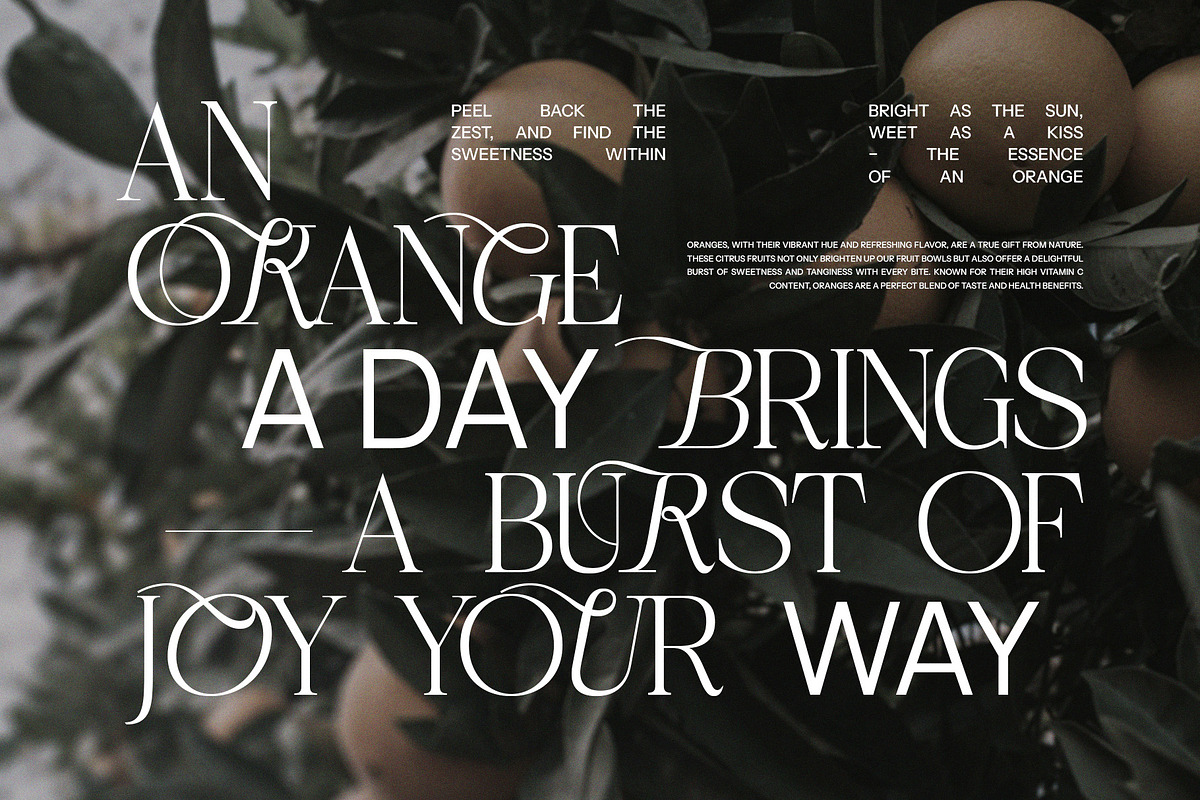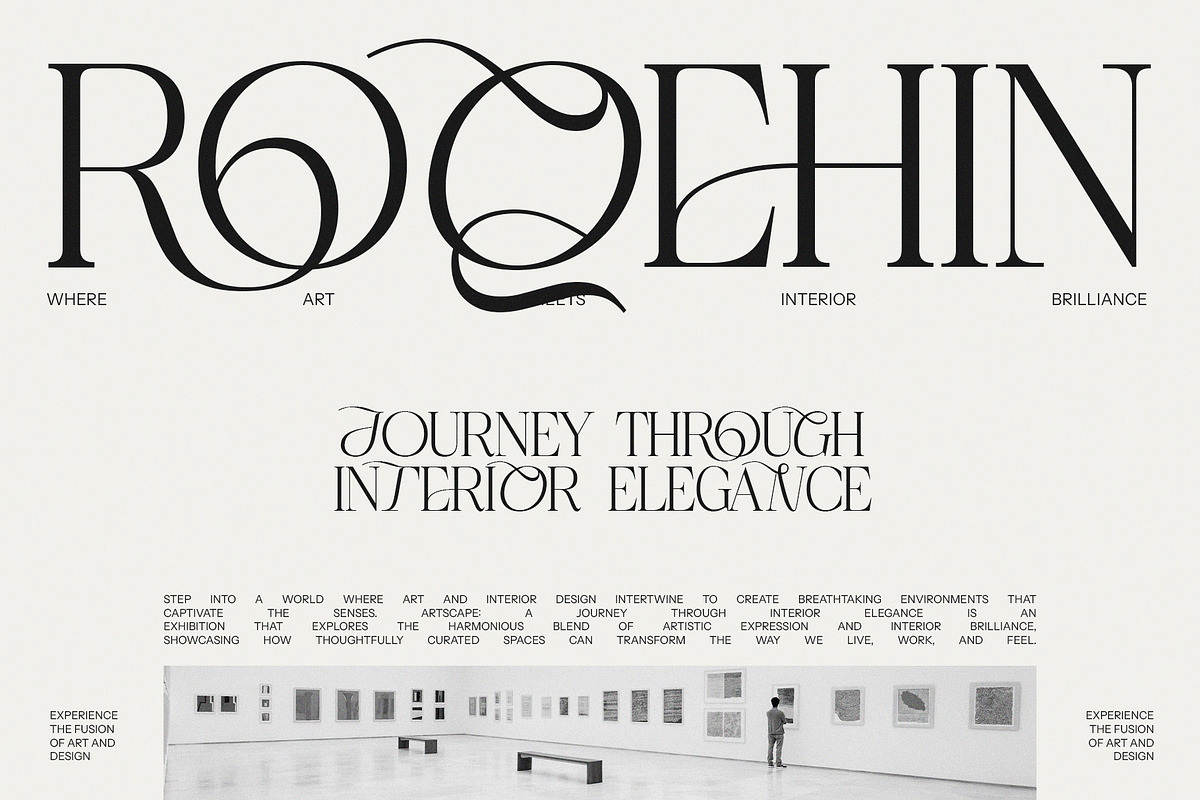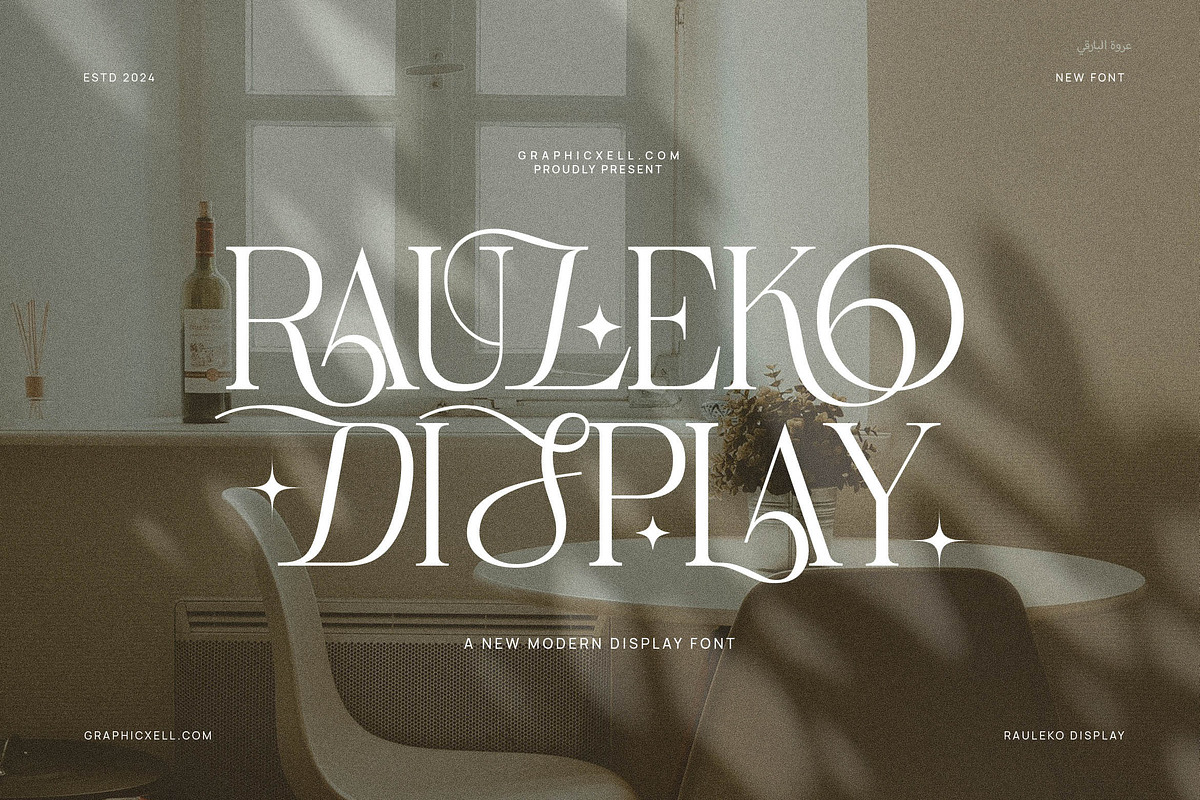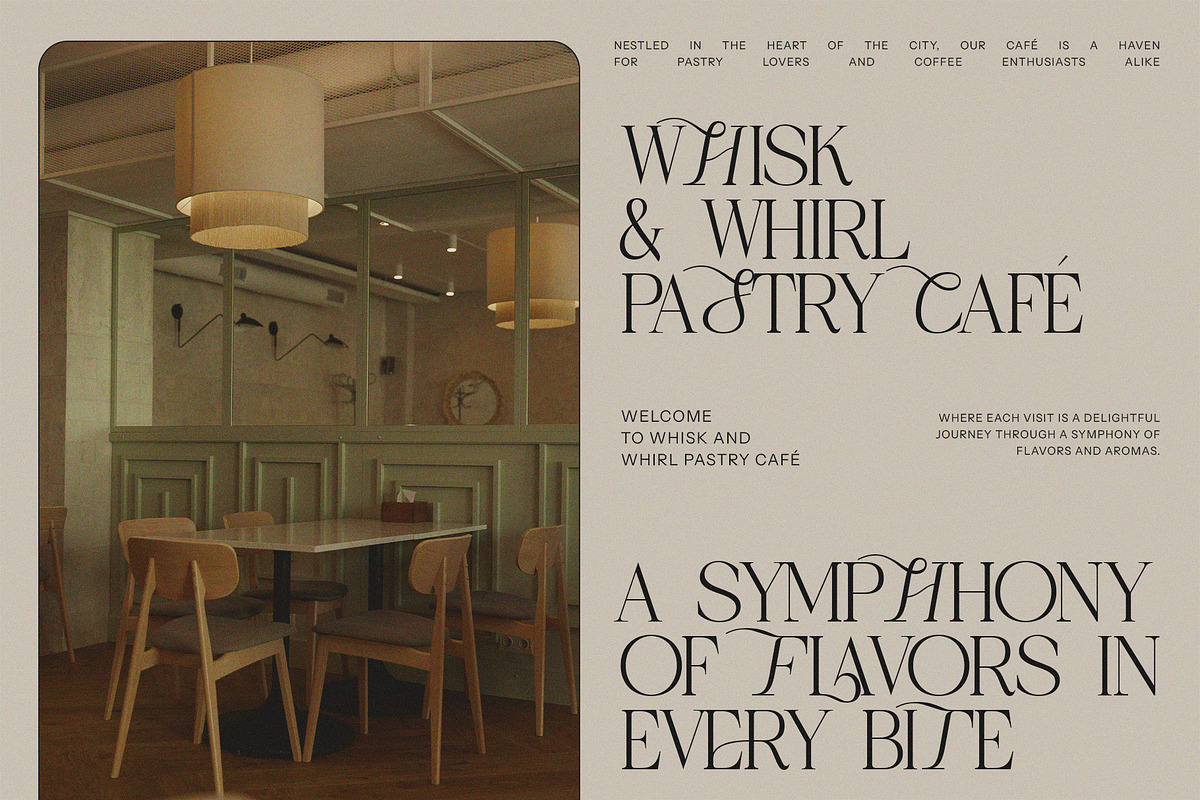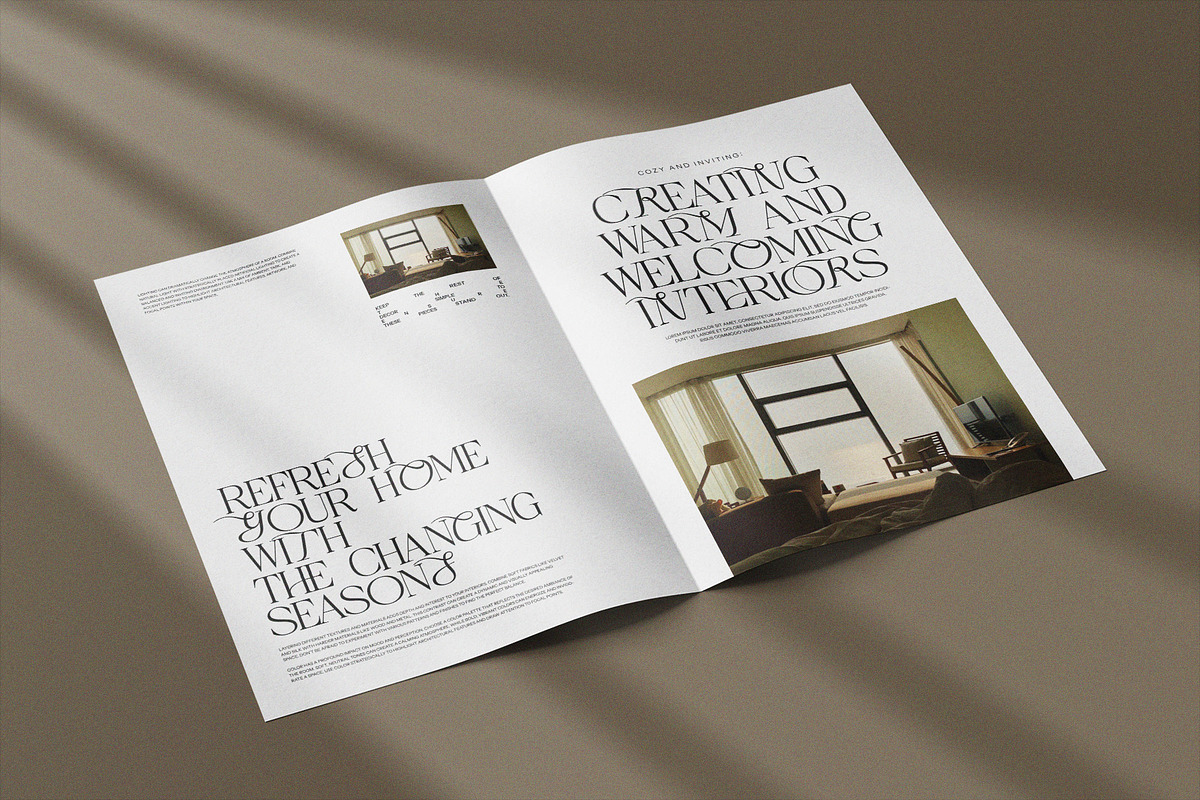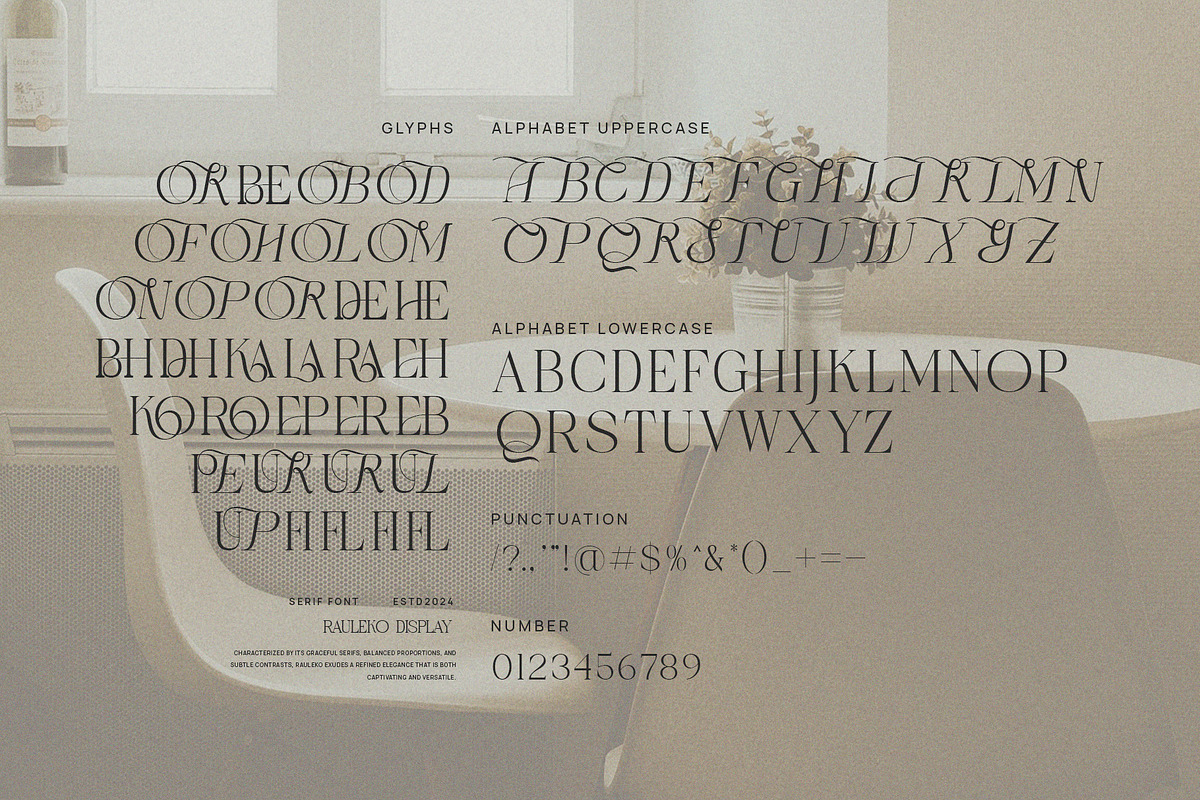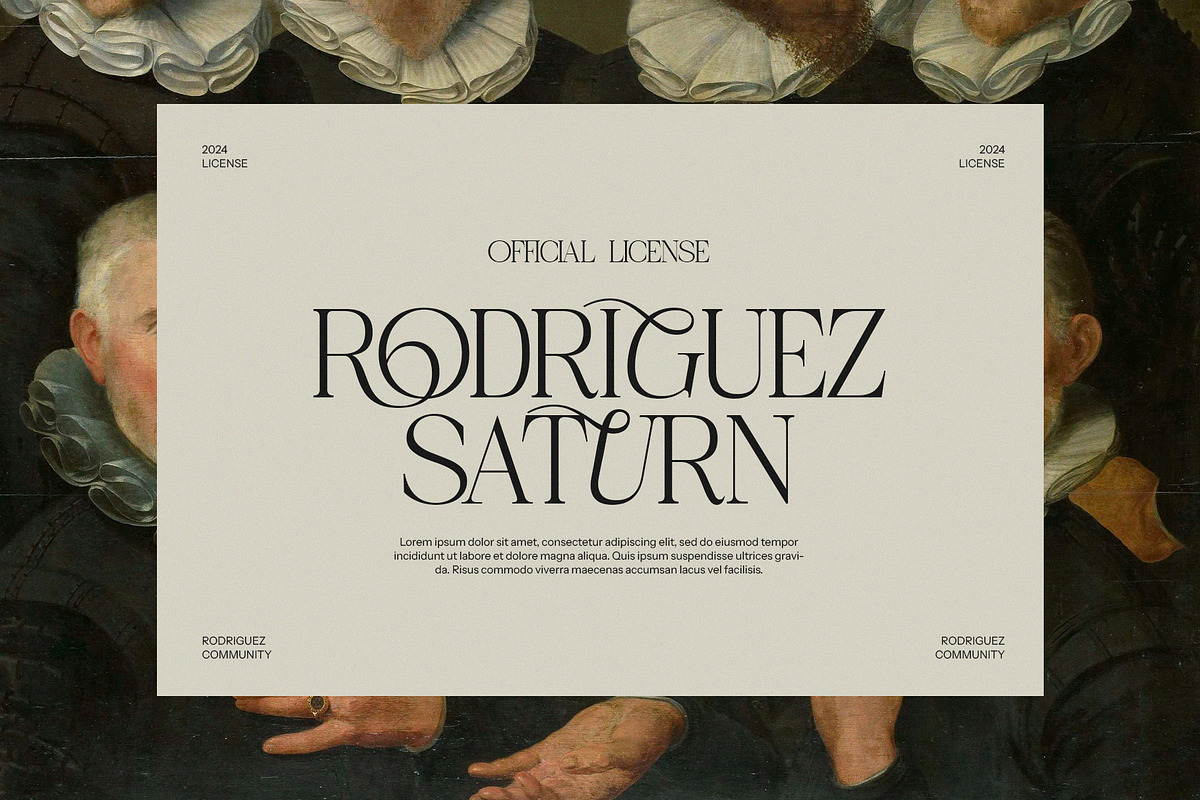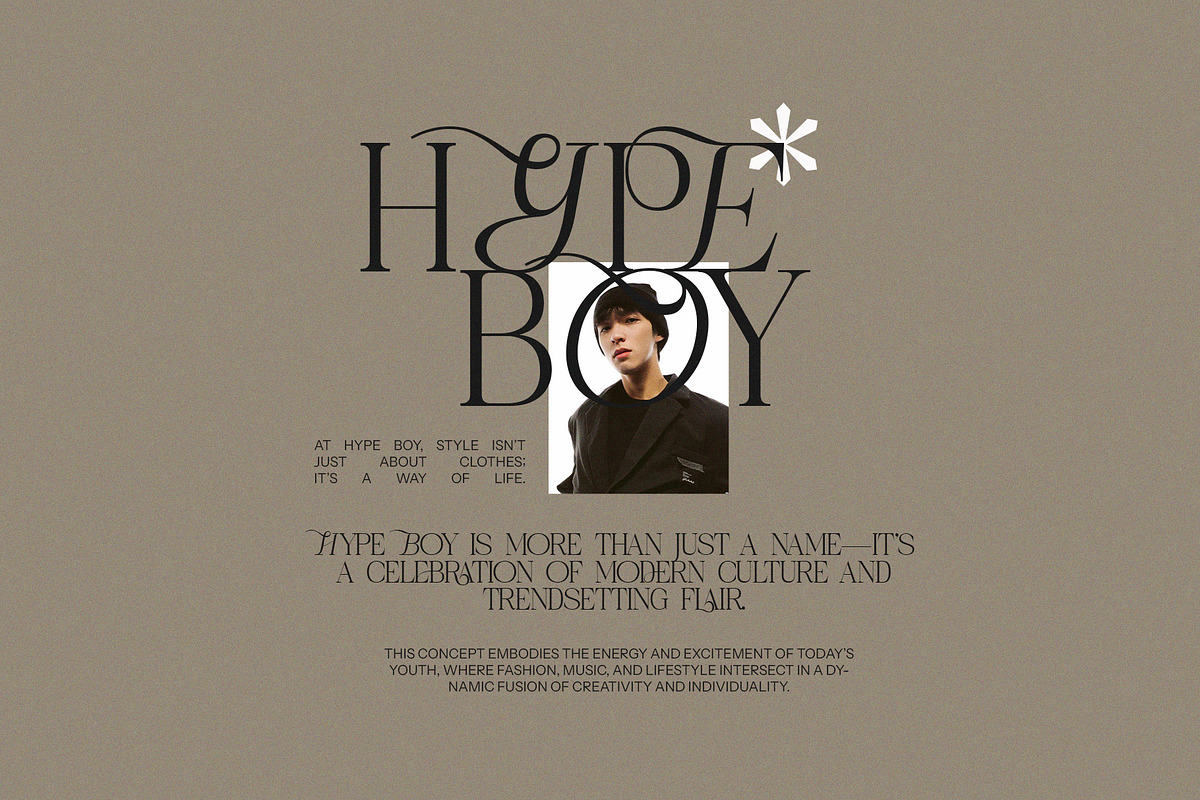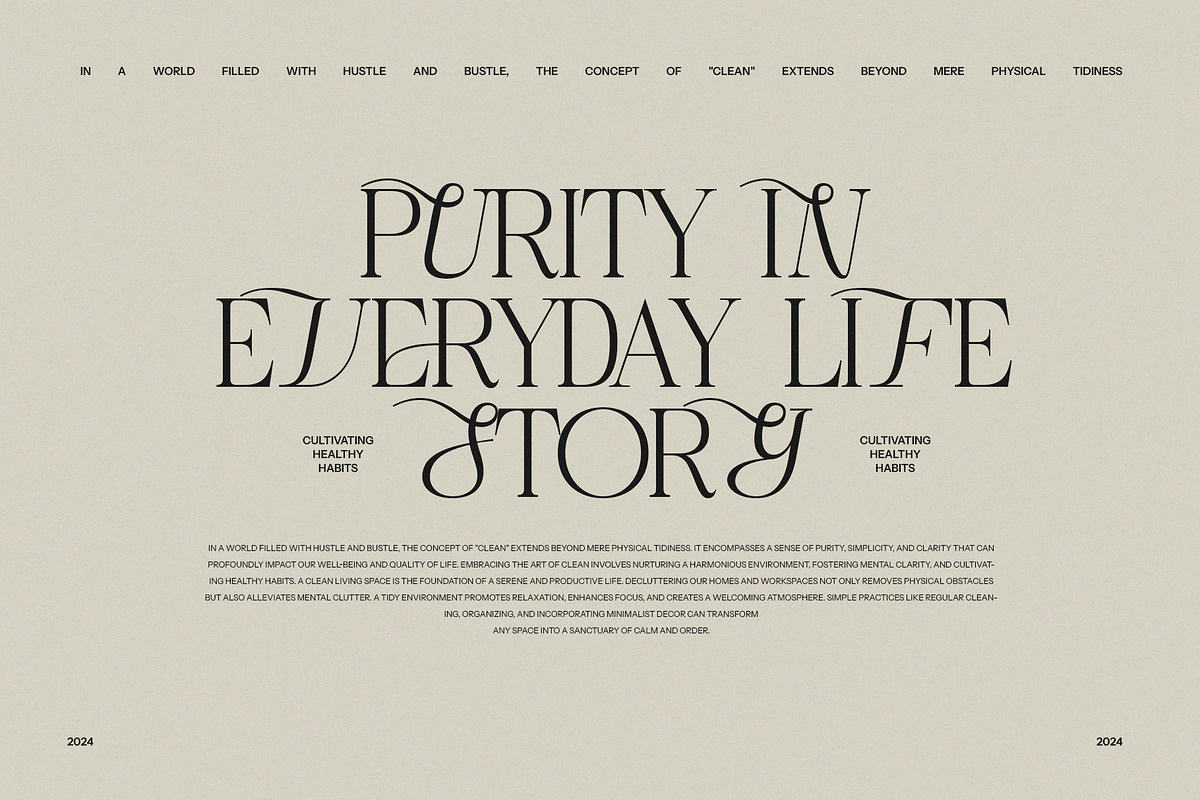
Rauleko Calligraphy Serif Font
Rauleko Serif and Calligraphy is a kind of creative font. With a unique style, this font looks elegant, making it a good investment for any graphic designer. The combination of a modern style and classy look also makes this font suitable for anyone who works on digital projects and needs a unique typeface. Whether you want to use it for branding projects or wedding designs, this serif font and calligraphy will create a sophistication. Rauleko Serif and Calligraphy is also recommended for other projects including social media posts, logos, ads, product packaging, photography, product designs, watermarks, etc. What makes it versatile is the high level of readability. So, there’s no worry about using it for different purposes. This font has a very distinctive style. So, it can easily impress your audience with this calligraphy. Of course, you will not be disappointed to try using this classy font.